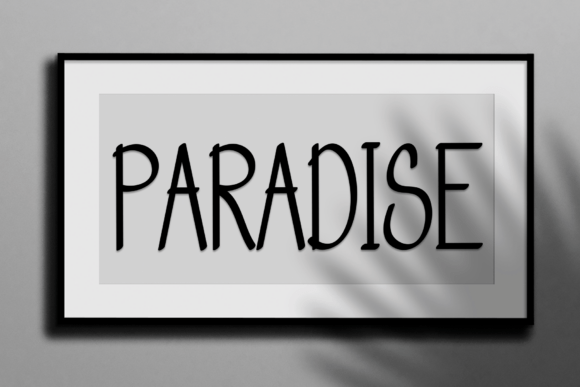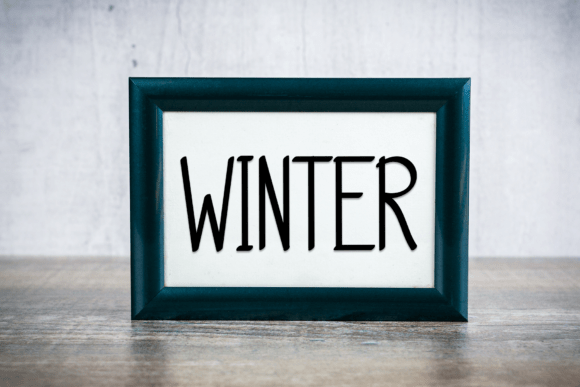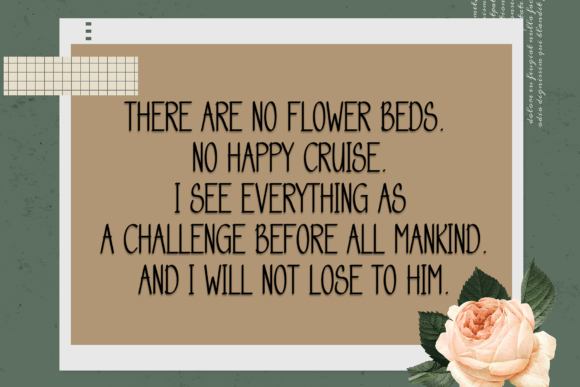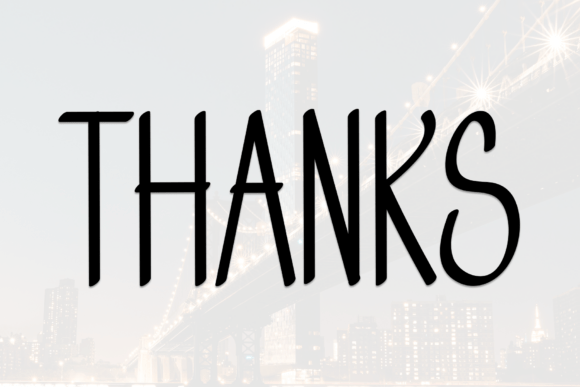
Introduction to Newyear Light Font
As designers, we’ve all been there – staring at a blank page, trying to find the perfect font to bring our creative project to life. The right font can make all the difference, setting the tone and atmosphere for our design. For me, it’s often that ‘aha’ moment when I stumble upon a font that just feels right. And that’s exactly what happened when I discovered the Newyear Light Font.
This charming handwritten display font is a treasure trove of design goodness, filled with a sense of heartfelt perfection. Its smooth strokes and organic lines evoke a relaxed atmosphere, making it perfect for a variety of design projects, from branding to invitations and social media graphics. As a valuable design resource, the Newyear Light Font is a must-have for any designer looking to add a touch of high-quality, creative flair to their work.
Key Features of Newyear Light Font
- High-quality, elegant design perfect for creative projects and special occasions.
- Transparent background, allowing for easy customization and seamless integration with any design.
- Available in multiple sizes and resolutions, including 32px, 64px, and 128px, with resolutions up to 300 DPI.
- Unique characteristics include delicate brushstrokes and subtle texture, adding a touch of sophistication to any design.
- Designed as a versatile design resource for a wide range of creative applications, from digital art to print materials.
- Perfect for adding a festive and celebratory feel to your designs, making it ideal for New Year’s Eve and other special occasions.
Honest Review: Newyear Light Font
As a designer, I’m always on the lookout for high-quality design resources to enhance my creative projects. Recently, I stumbled upon the Newyear Light Font, and I must say it’s a fantastic addition to my design library.
One of the standout features of this font is its transparent background, which makes it perfect for use on images or other design elements with a background. ✨ The font itself is incredibly versatile, with a modern and sleek aesthetic that works well for a variety of design projects.
Here are some of the key features that make the Newyear Light Font a valuable design resource:
- High-quality design with a modern aesthetic
- Perfect for creative projects requiring a touch of sophistication
That being said, there are a few limitations to keep in mind. ⚠️ The font is not as extensive as some other options on the market, with a relatively small character set. Additionally, some users may find the font’s modern aesthetic to be a bit too sleek or minimalist for their tastes.
Overall, I’m thoroughly impressed with the Newyear Light Font. It’s a fantastic resource for designers looking to add a touch of sophistication to their creative projects. With its high-quality design, transparent background, and free download, it’s an excellent value for designers of all levels.
The Newyear Light Font is ideal for designing invitations, greeting cards, and other festive materials. It’s also perfect for adding a touch of elegance to your logo or branding.
Tips for Getting the Most Out of Newyear Light Font
Experiment with different font sizes, colors, and styles to create a unique design. Combine the Newyear Light Font with other design elements, such as graphics and textures, to add depth and interest to your project.